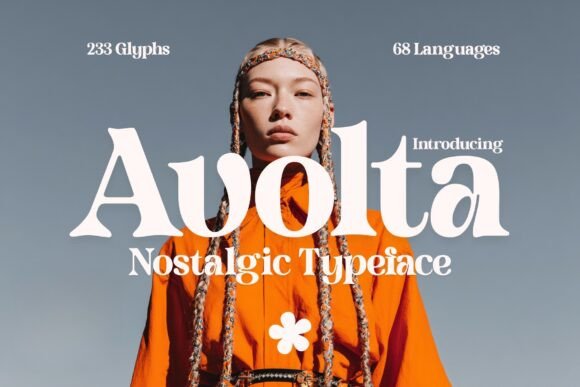
Step Back in Style with Avolta Font: The Bold Serif Typeface of the 1960s and 70s
In the world of typography, few fonts capture the essence of a bygone era as effortlessly as Avolta. This bold serif typeface is a masterful blend of vintage charm and modern luxury, transporting us back to the golden age of the 1960s and 70s with its refined ink traps, high contrast, and commanding presence. Whether you’re a designer, brand, or simply someone who appreciates the elegance of a retro twist, Avolta is the perfect choice for those who crave sophistication and nostalgia.
The Inspiration Behind Avolta
Avolta’s design is deeply rooted in the typography of the 1960s and 70s, an era known for its iconic fonts that exuded luxury, sophistication, and glamour. During this time, typography played a crucial role in shaping the visual identity of brands, magazines, and fashion campaigns. The likes of Playbill, Vogue, and Harper’s Bazaar all featured distinctive typography that has become synonymous with the era. Avolta’s creators drew inspiration from these classic fonts, reimagining them with a modern twist to create a truly unique typeface.
Design Characteristics of Avolta
Avolta’s design is characterized by its refined ink traps, high contrast, and striking serifs. The ink traps, a nod to traditional printing techniques, add a touch of elegance and sophistication to the font. The high contrast between the thick and thin strokes creates a sense of drama and flair, making Avolta perfect for headlines, titles, and branding. The serifs, with their classy curves and precise lines, add a level of refinement and luxury to the font, making it ideal for high-end design applications.
Applications of Avolta
Avolta’s versatility makes it an excellent choice for a wide range of design applications. For editorial designers, Avolta is perfect for crafting headlines that demand attention. Its bold, commanding presence makes it an excellent choice for magazine covers, article titles, and even book covers. For brands, Avolta offers a unique opportunity to evoke nostalgia and luxury, making it perfect for branding, packaging, and advertising. Fashion designers, in particular, will appreciate Avolta’s elegant, sophisticated curves, making it an excellent choice for fashion campaigns, logos, and haute couture branding.
Why Choose Avolta?
So, why choose Avolta over other serif typefaces? The answer lies in its unique blend of vintage charm and modern luxury. Avolta’s designers have successfully captured the essence of the 1960s and 70s, reimagining it for the modern era. The result is a font that is both nostalgic and contemporary, elegant and bold. Whether you’re looking to evoke a bygone era or simply want to add a touch of sophistication to your design, Avolta is the perfect choice.
Using Avolta for Editorial Design
For editorial designers, Avolta offers a wealth of creative possibilities. Its bold, commanding presence makes it perfect for headlines, while its elegant curves and refined ink traps make it suitable for body copy. Avolta’s high contrast and striking serifs also make it an excellent choice for creating visually appealing layouts and spreads. Whether you’re designing a magazine cover, article title, or book cover, Avolta is sure to make a lasting impression.
Avolta in Branding and Advertising
Avolta’s luxurious, sophisticated curves make it an excellent choice for branding and advertising. Its nostalgic charm and modern twist evoke a sense of elegance and refinement, perfect for high-end brands and luxury products. Avolta’s bold, commanding presence also makes it perfect for headlines and titles, ensuring that your brand or product stands out from the crowd. Whether you’re creating a logo, packaging, or advertising campaign, Avolta is sure to deliver unforgettable impact.
Tips for Using Avolta Effectively
To get the most out of Avolta, here are a few tips to keep in mind:
- Use Avolta for headlines and titles to create a bold, commanding presence.
- Pair Avolta with a sans-serif font for body copy to create visual interest and contrast.
- Experiment with different weights and styles to add depth and nuance to your design.
- Use Avolta’s refined ink traps and high contrast to create visually appealing layouts and spreads.
In conclusion, Avolta is a bold serif typeface that captures the essence of the 1960s and 70s with effortless grace. Its refined ink traps, high contrast, and striking serifs make it perfect for a wide range of design applications, from editorial design to branding and advertising. Whether you’re looking to evoke nostalgia, luxury, or simply want to add a touch of sophistication to your design, Avolta is the perfect choice. With its unique blend of vintage charm and modern luxury, Avolta is sure to deliver unforgettable impact.